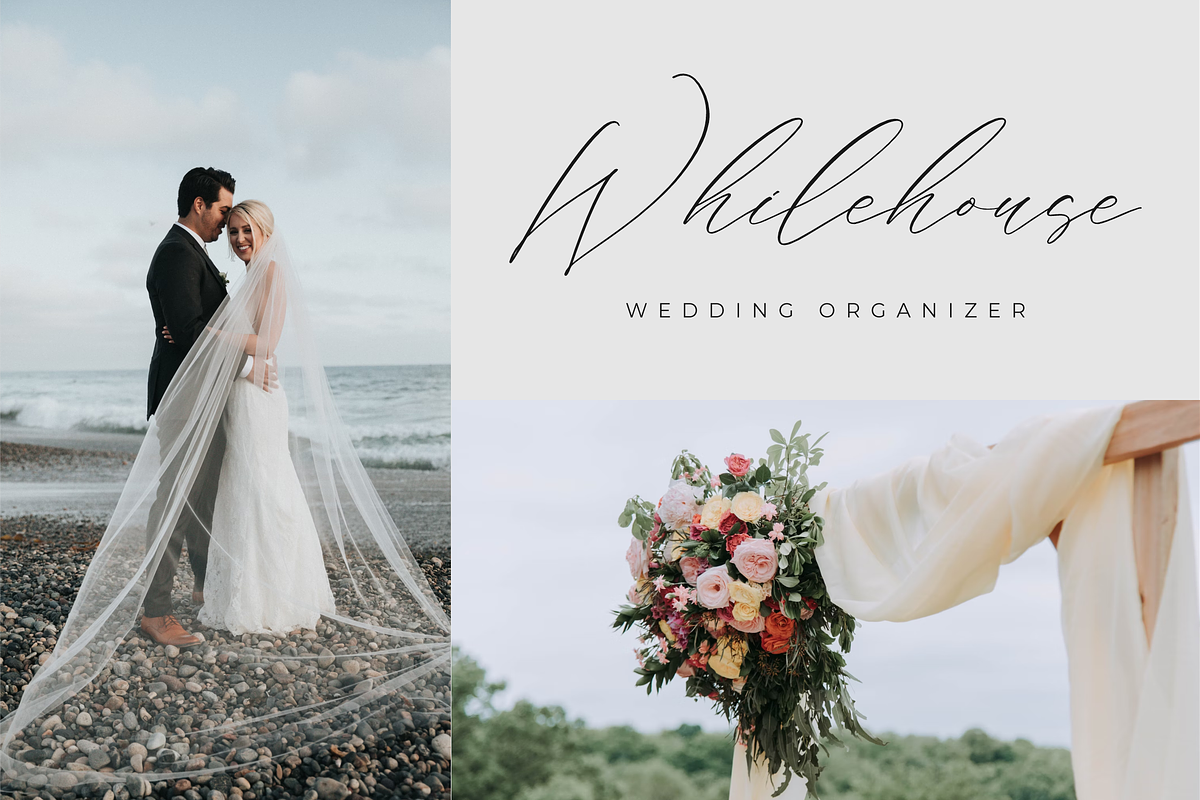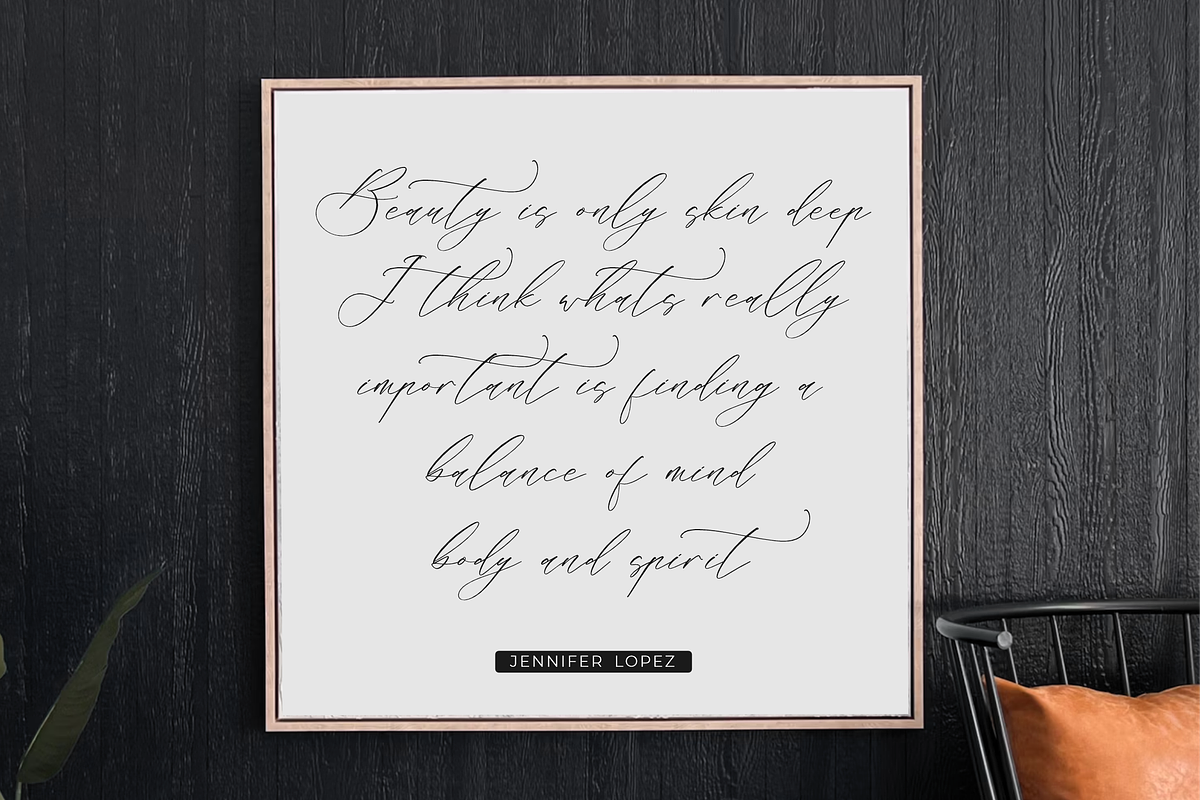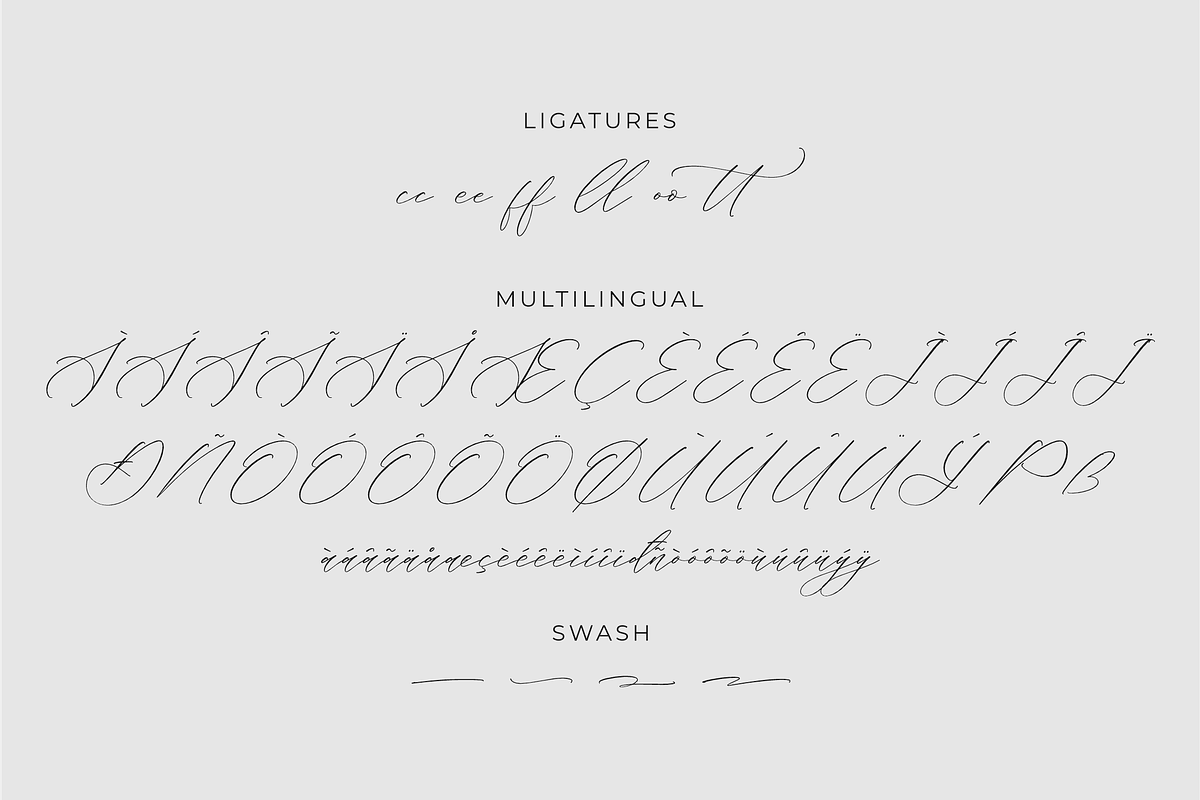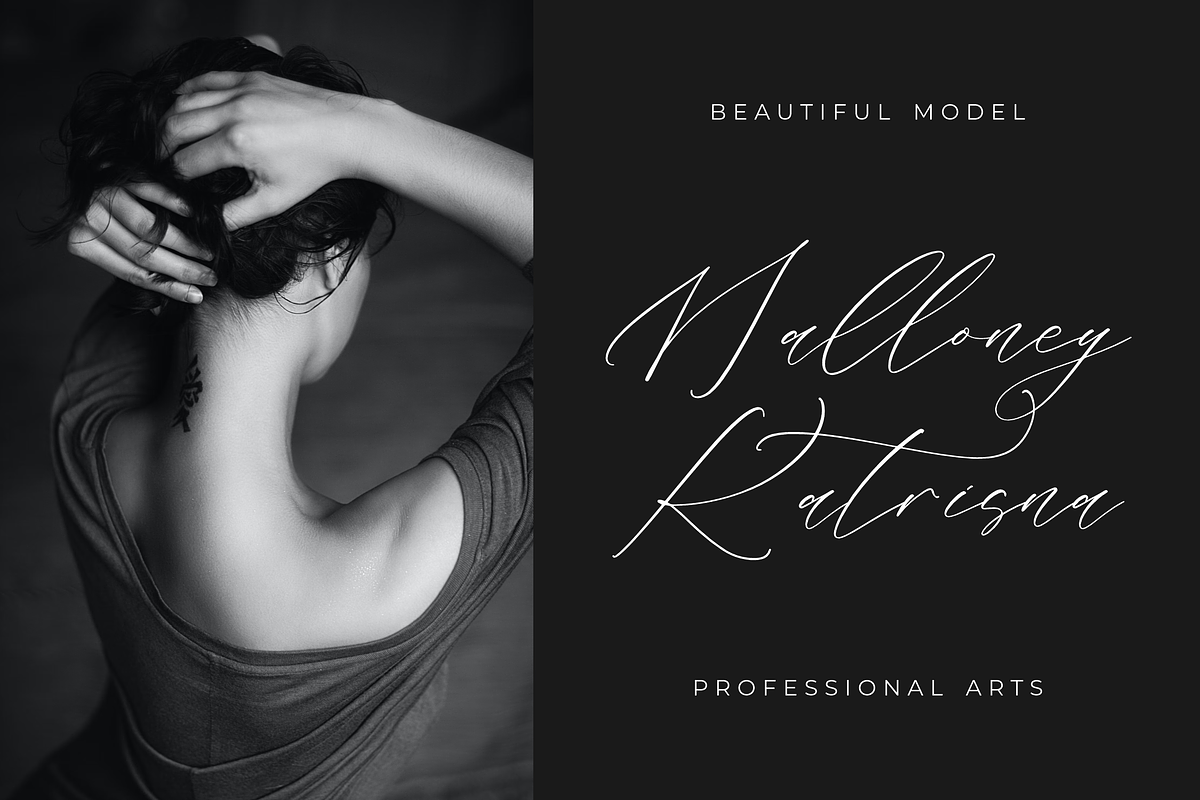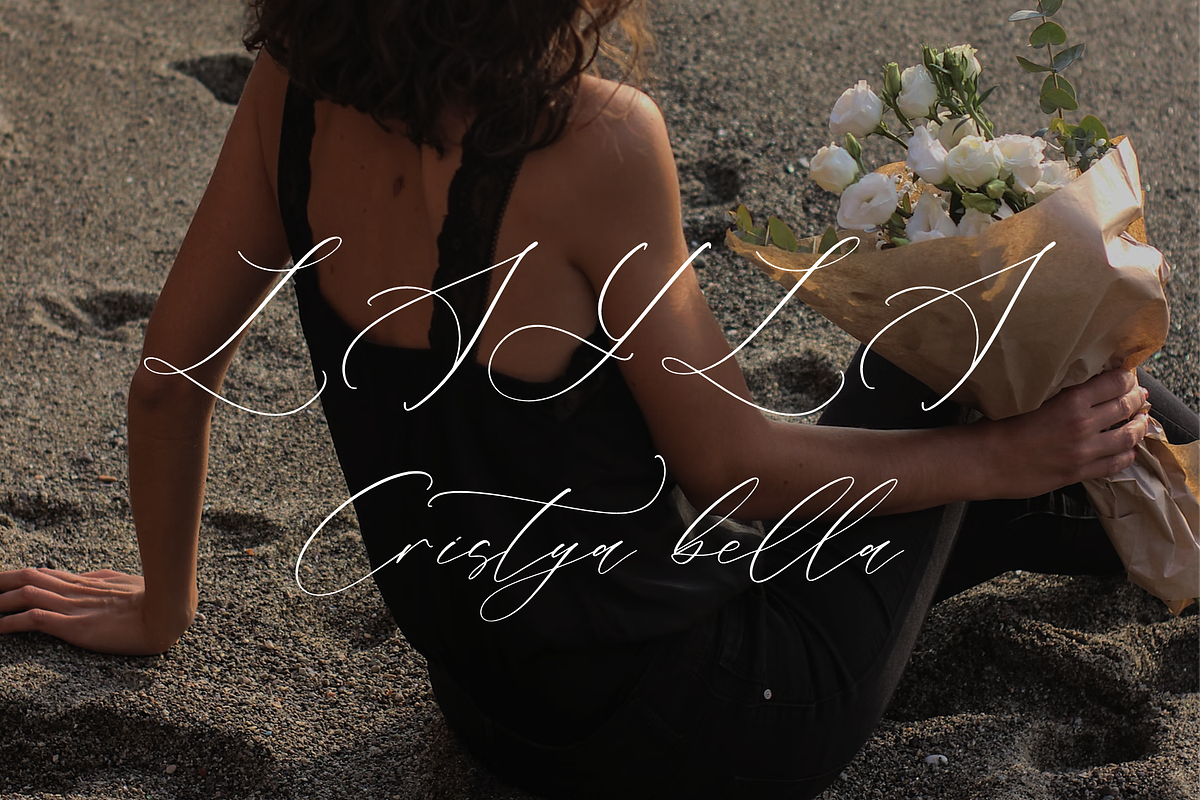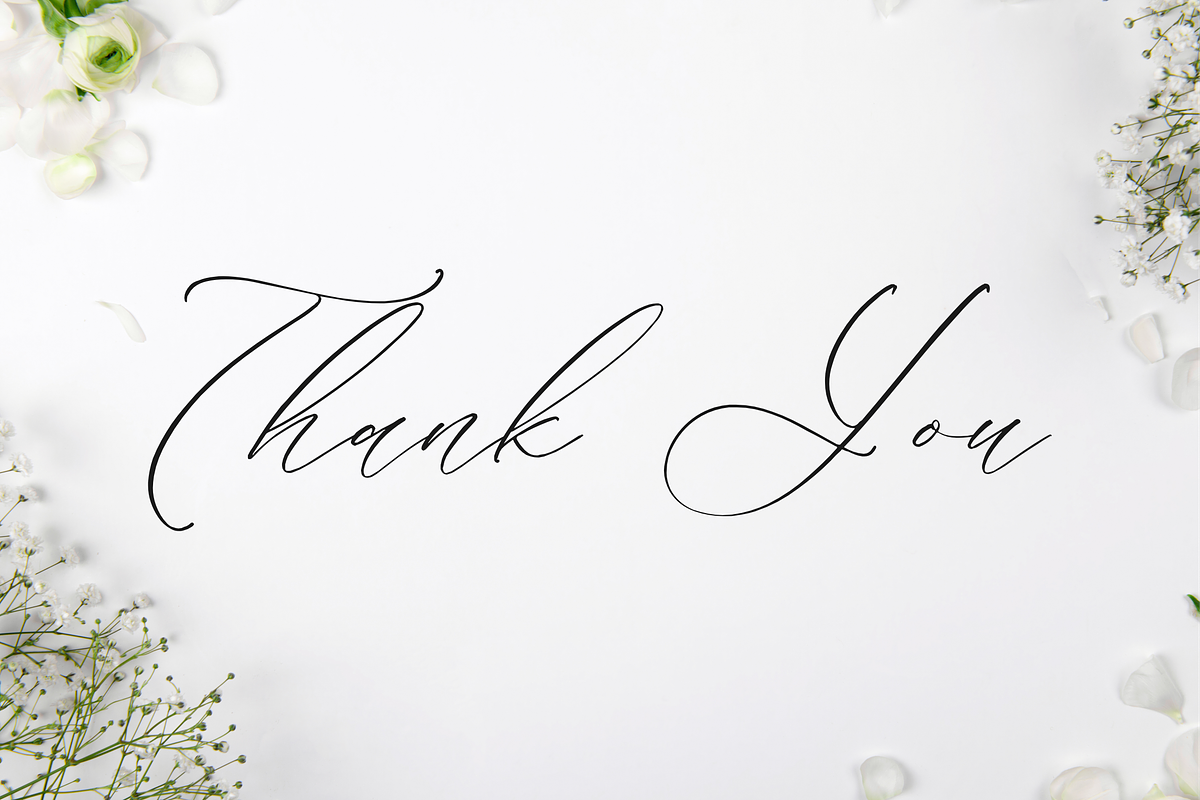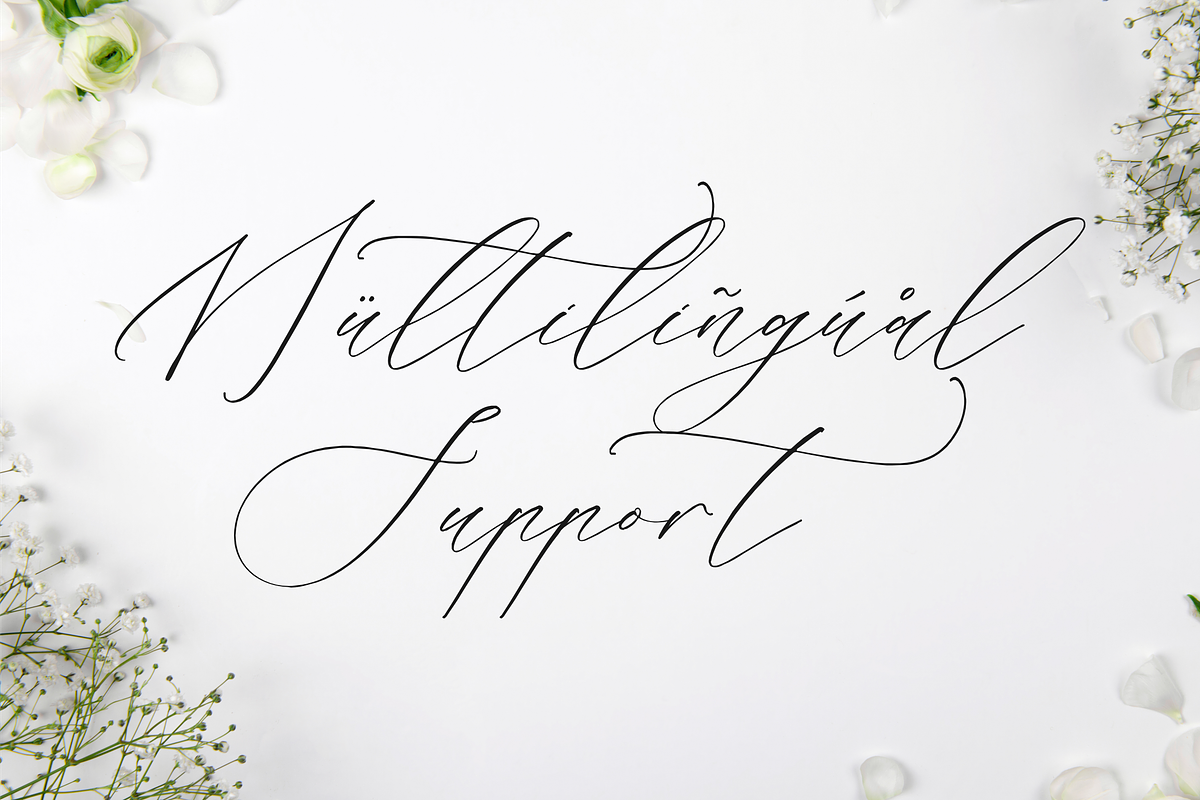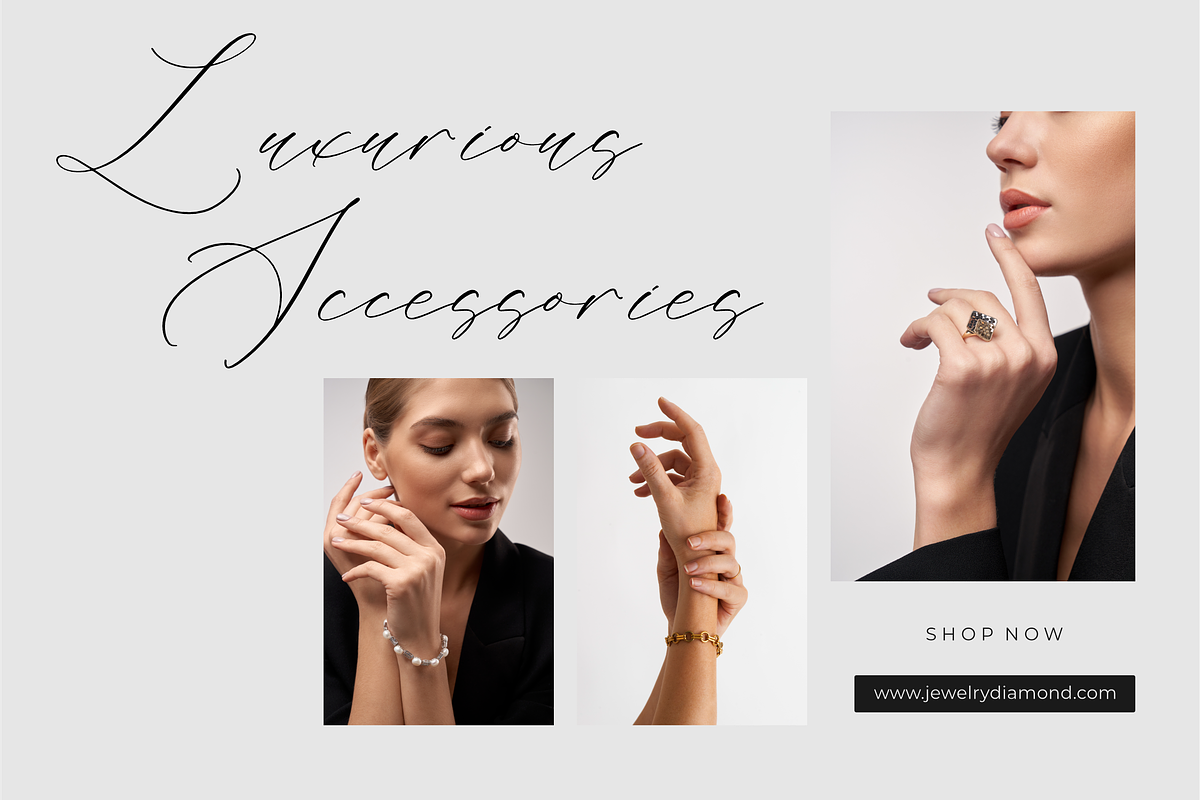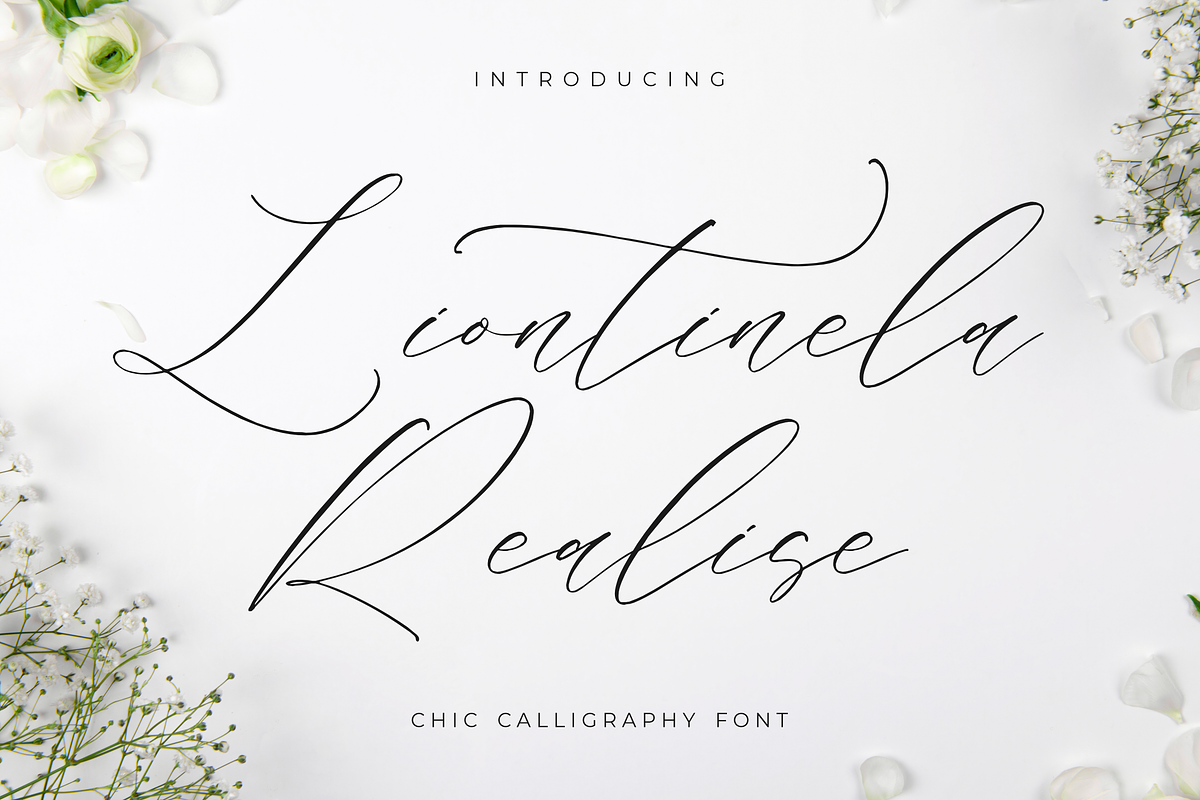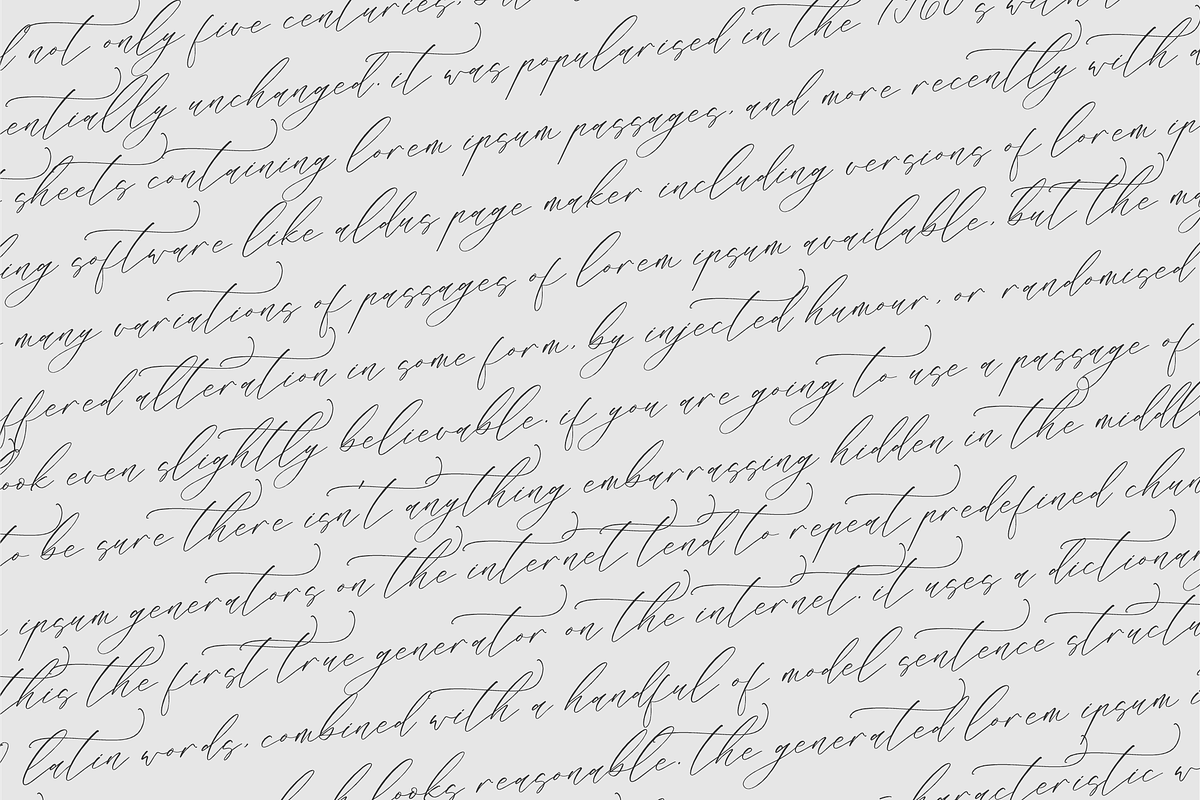
Liontinela Realise Chic Calligraphy
Proudly present Liontinela Realise - Chic Calligraphy Font , created by Storytype, A luxury script that has own unique style & modern look. This typeface is perfect for an elegant & luxury logo, book or movie title design, fashion brand, magazine, clothes, lettering, quotes, and so much more.